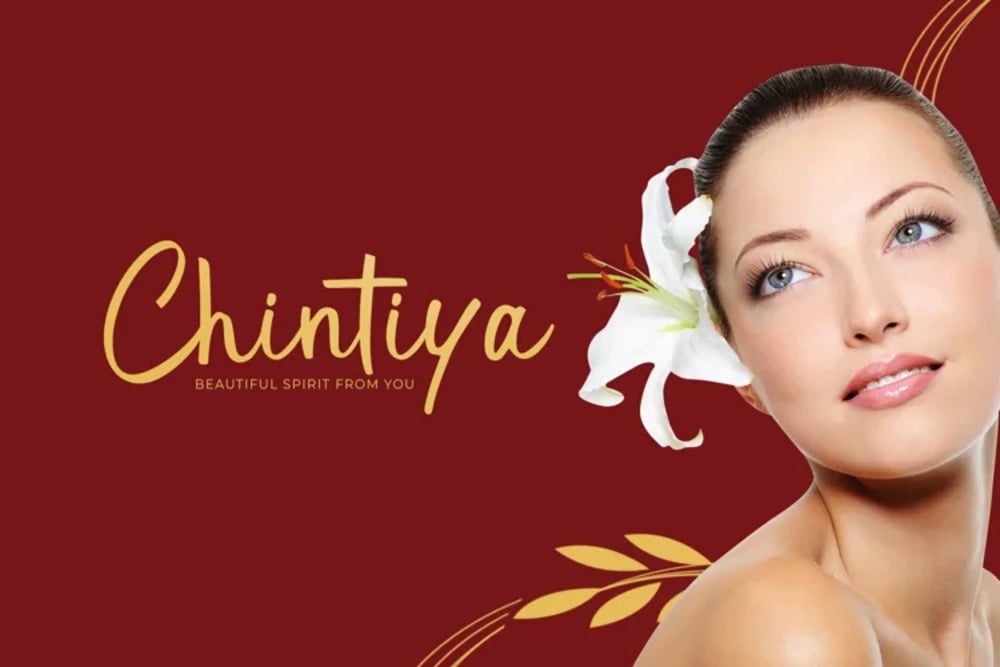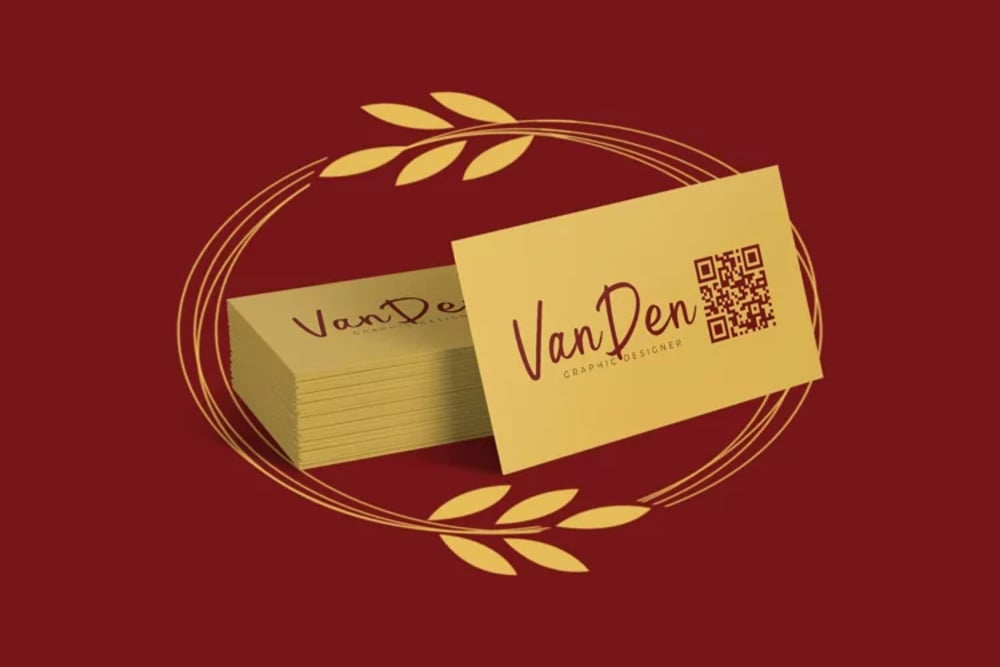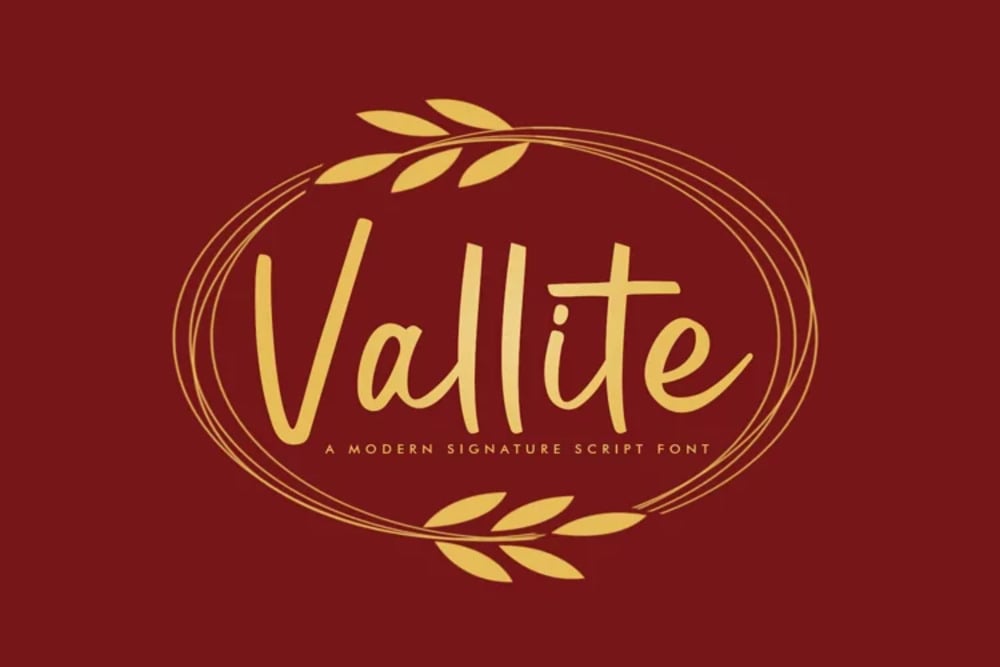
Vallite Font
Vallite is a sleek and contemporary serif font that balances elegance with modern simplicity. Its sharp edges and refined curves create a sophisticated yet approachable look, ideal for branding, editorial design, and high-end packaging. With a timeless appeal and impeccable readability, Vallite adds a touch of luxury and professionalism to any project, making it a versatile design choice.